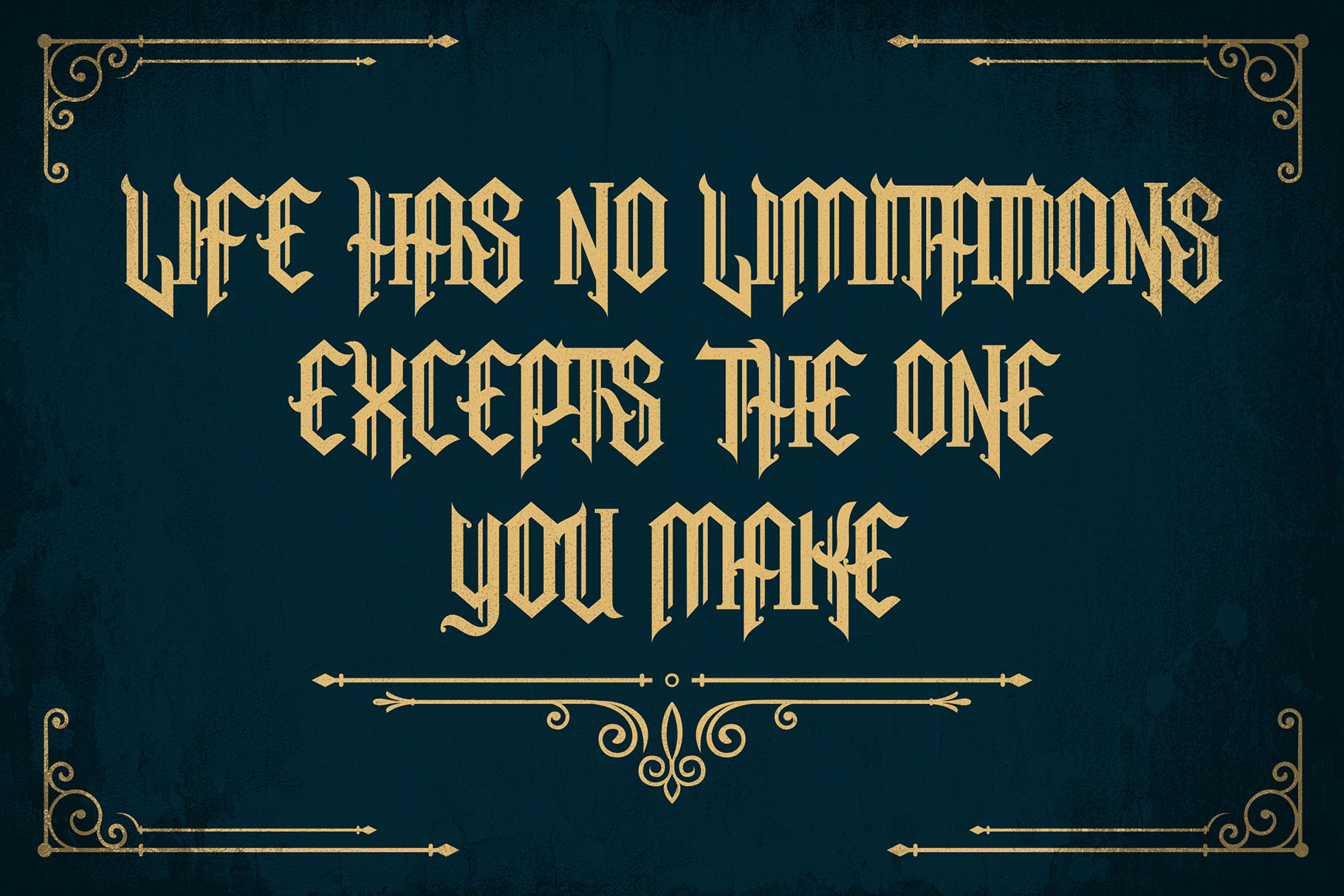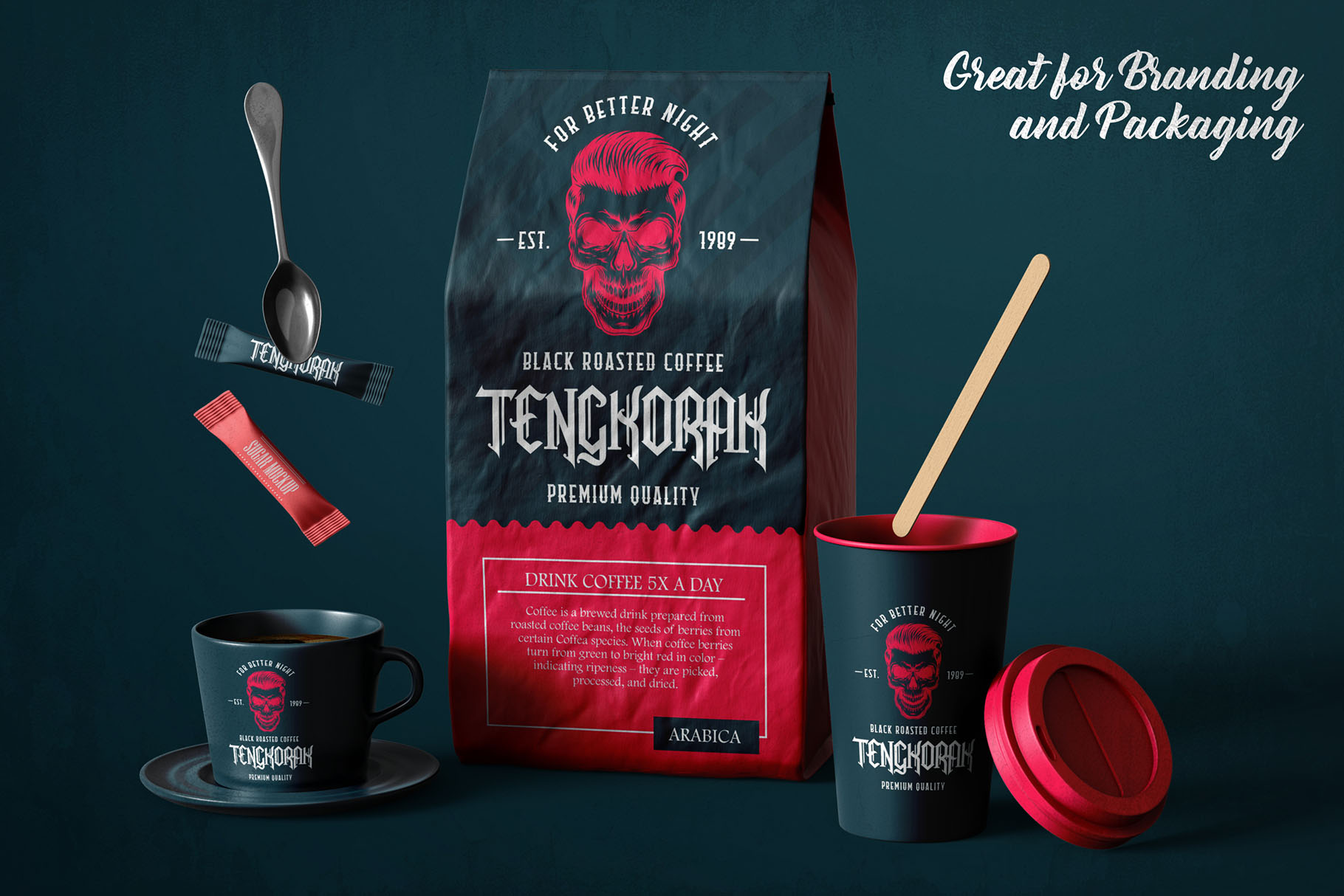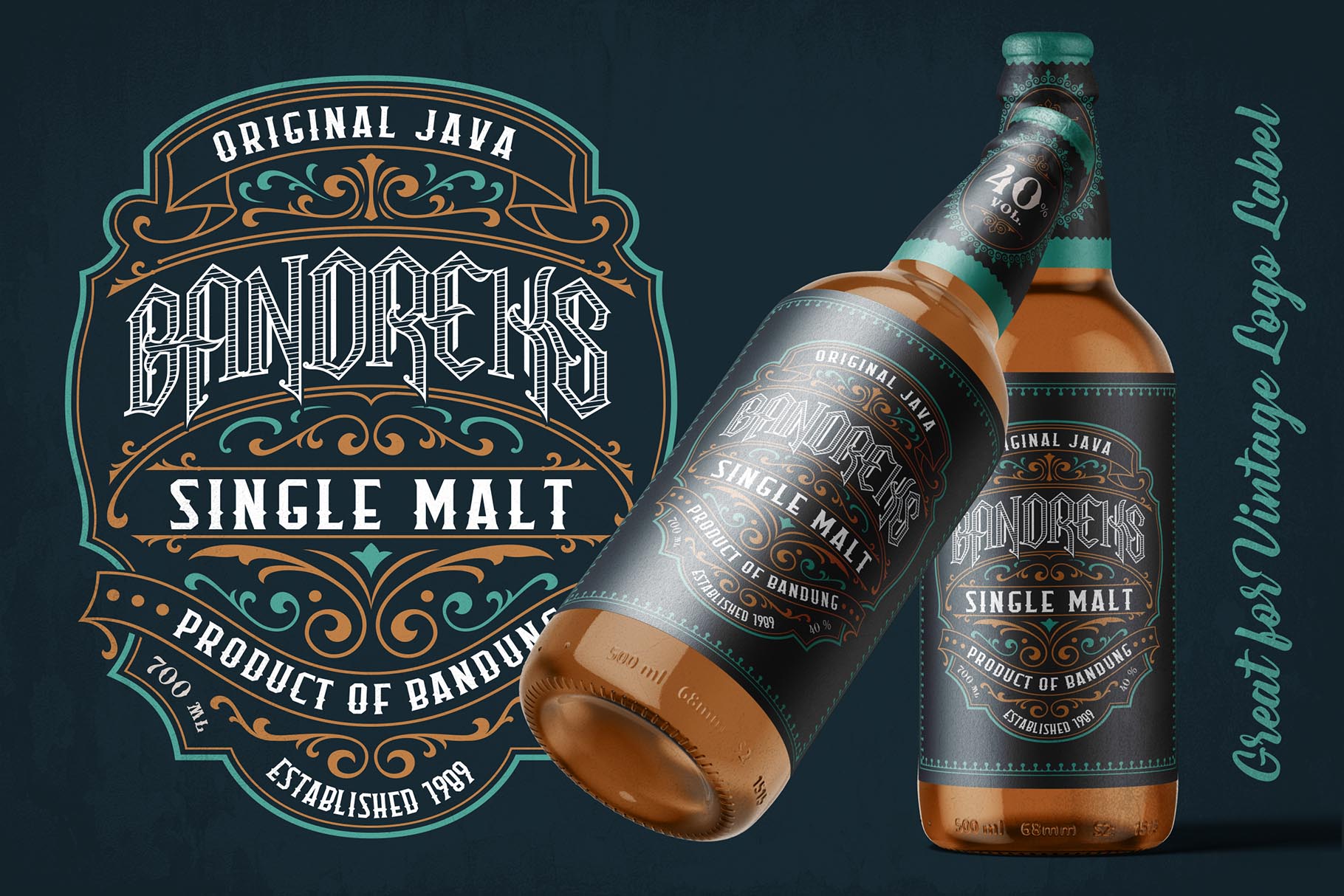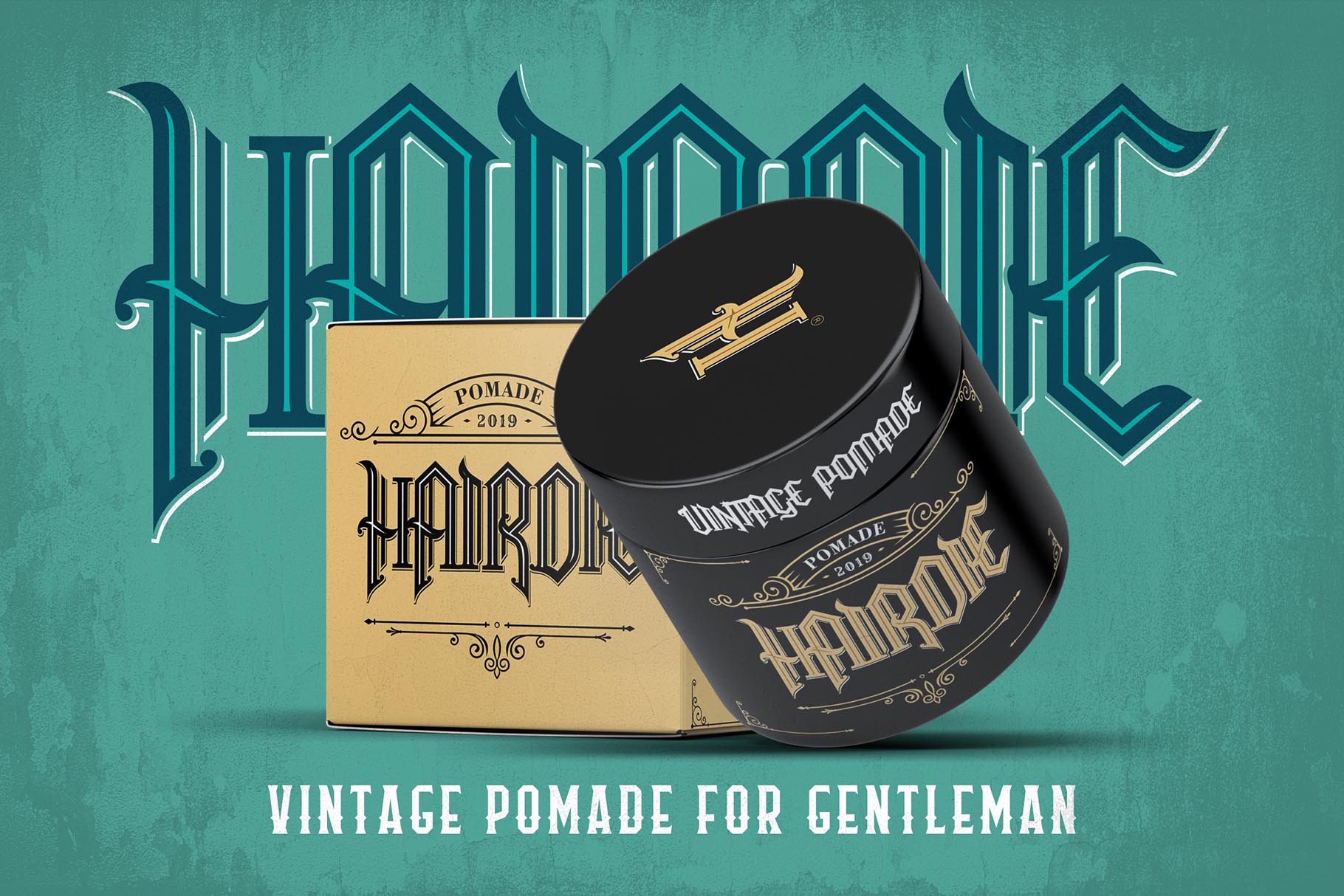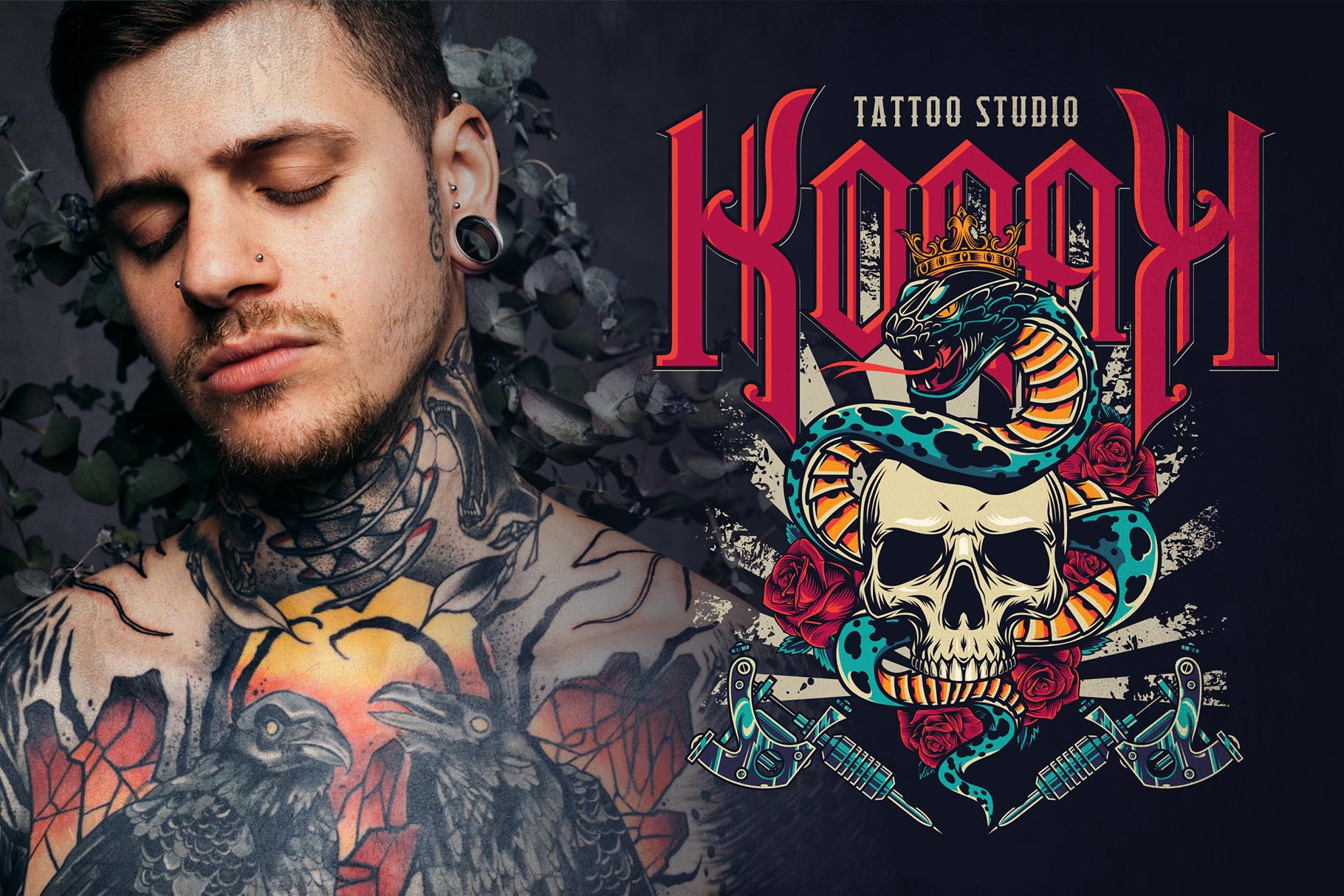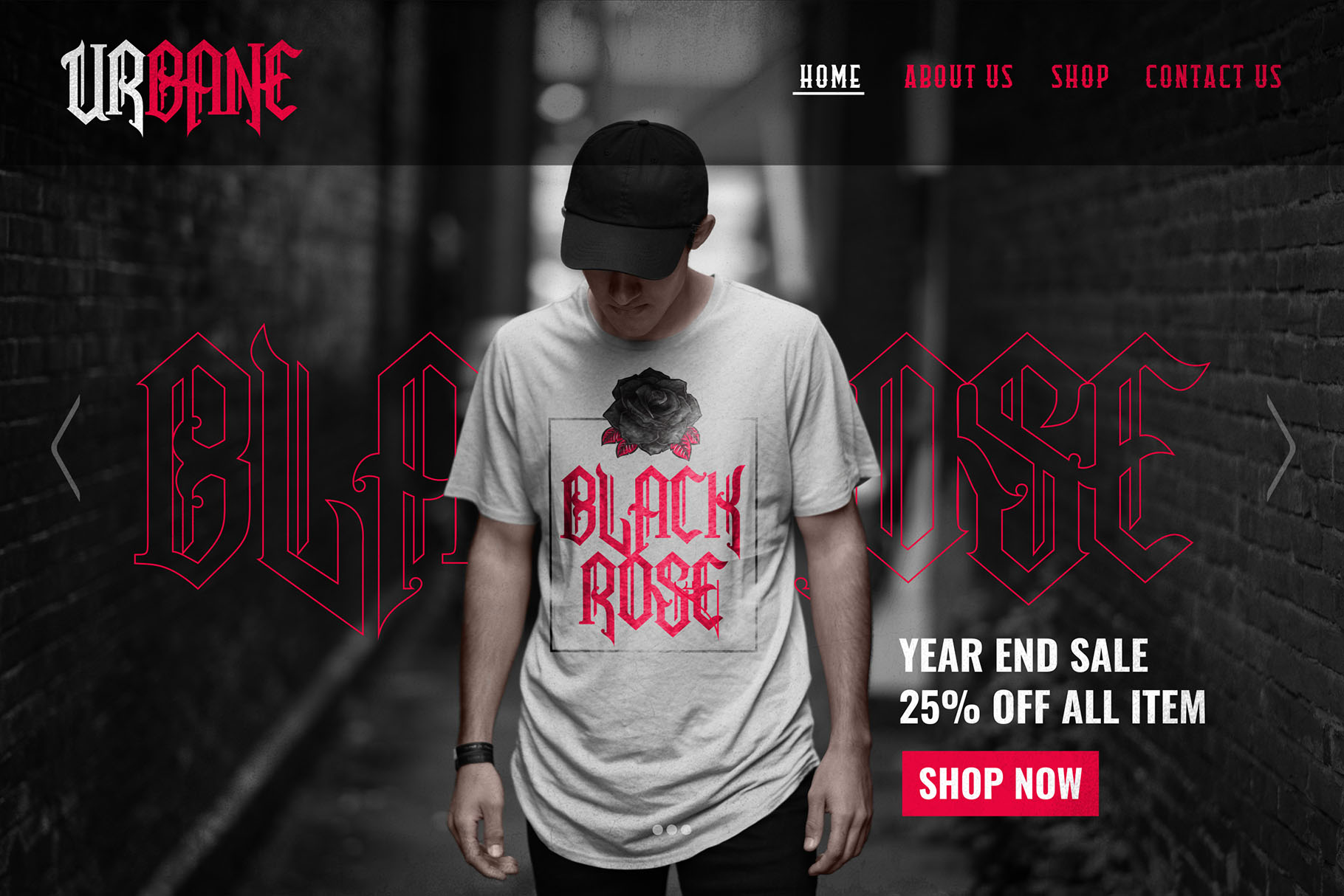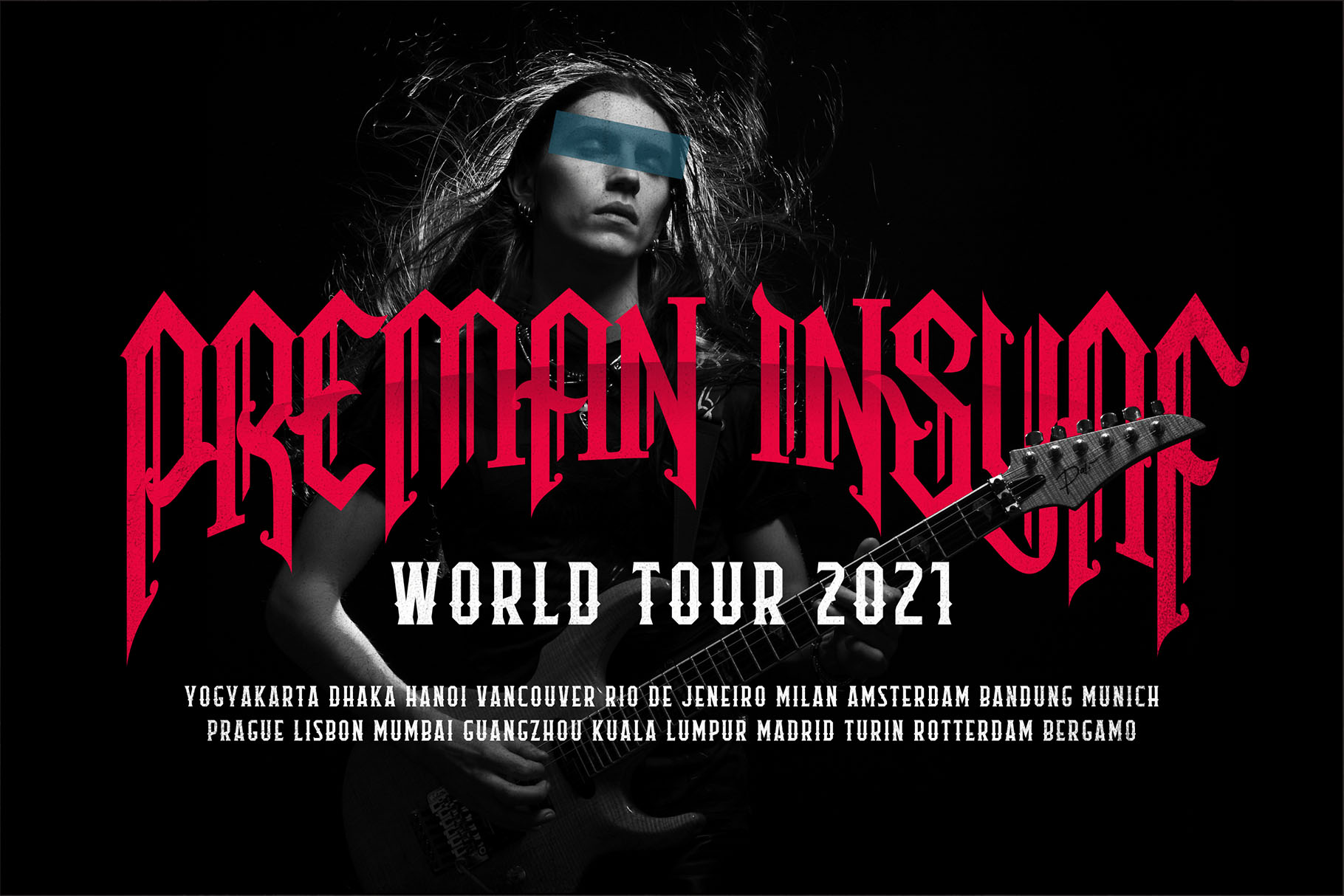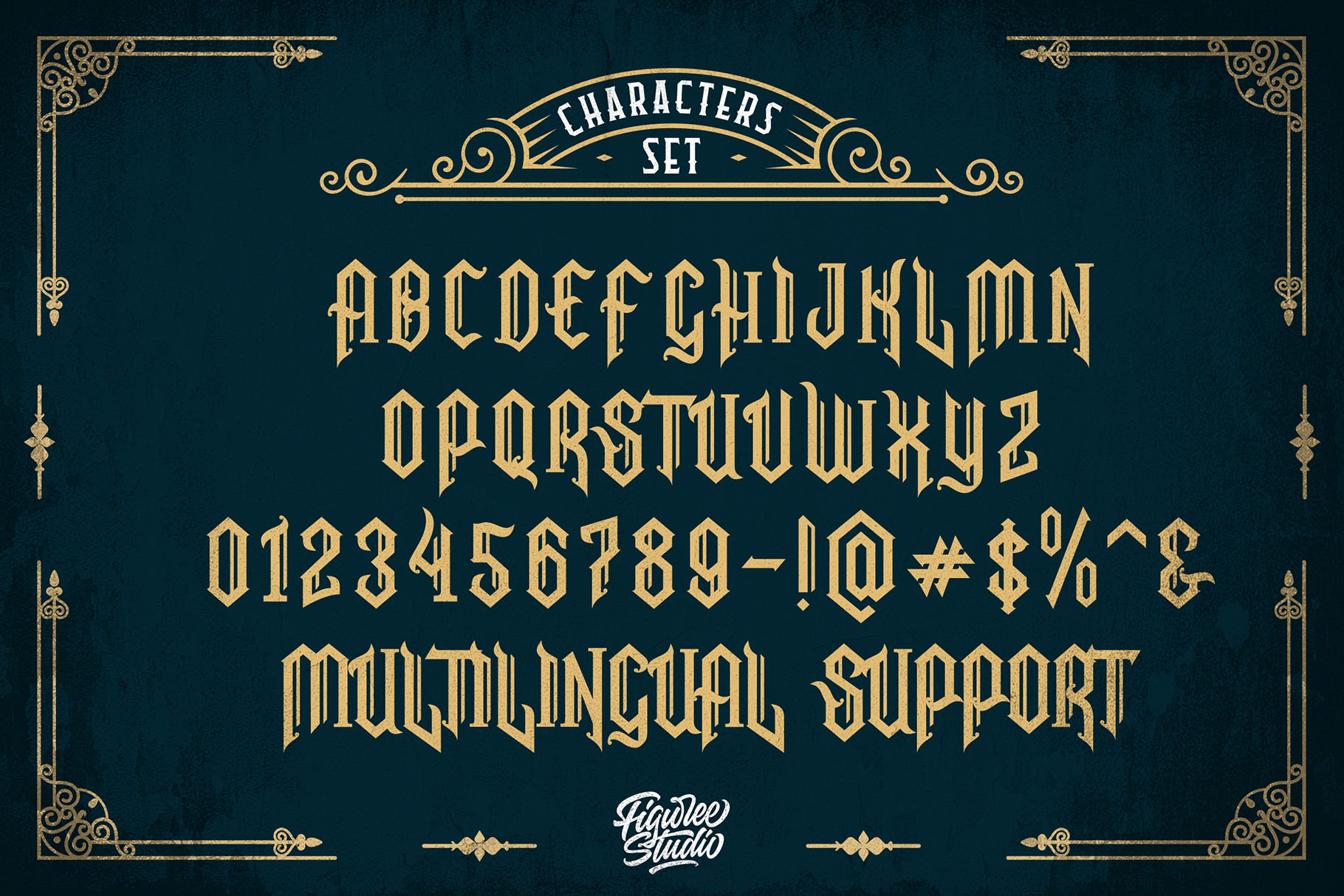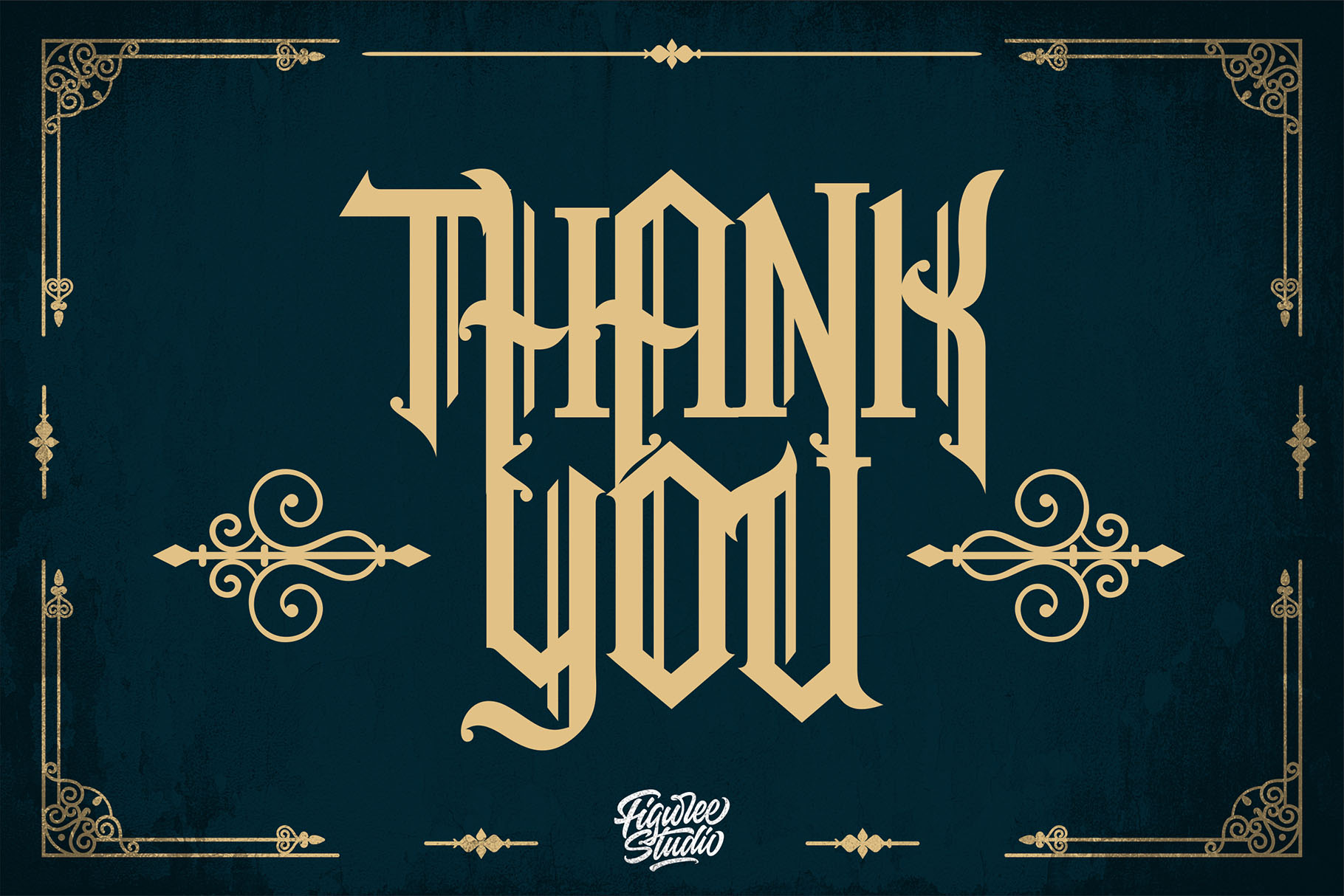
Snubhore
Introducing Snubhore Gothic Blackletter Font, unique gothic blackletter for your design.
Perfect for tattoos clothing, labels and packaging, branding, or any Gothic-themed projects!
• Character Set
• Numerals and Punctuation (OpenType Standard)
• Accents (Multilingual characters)